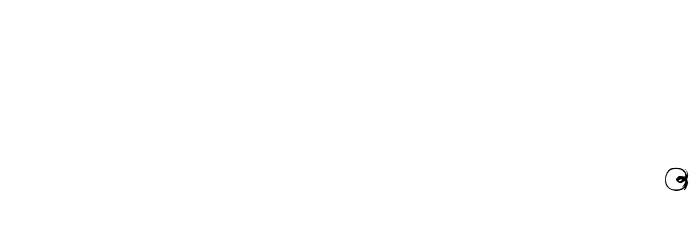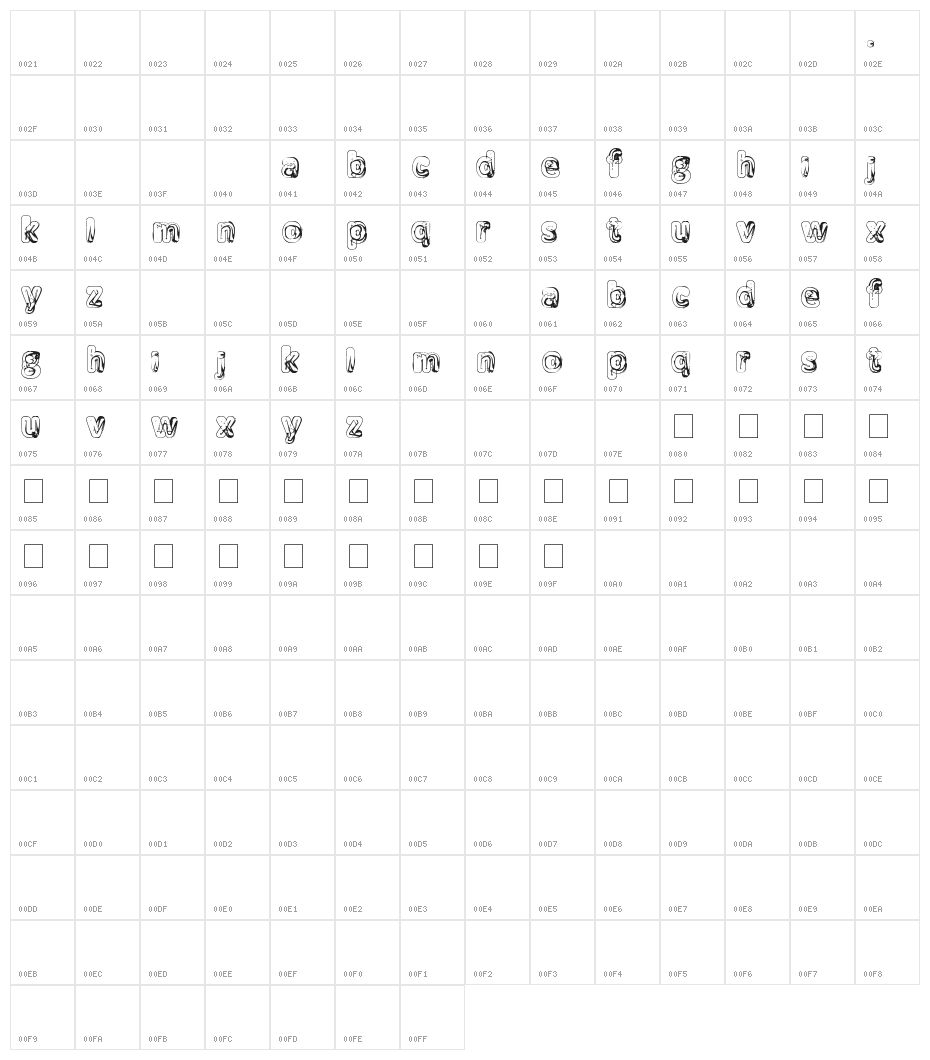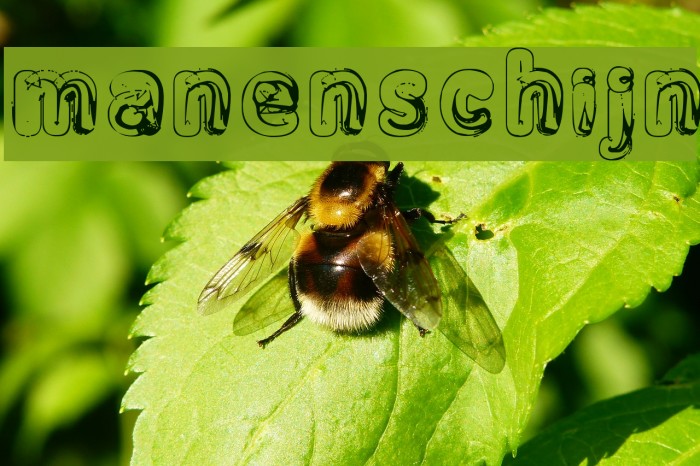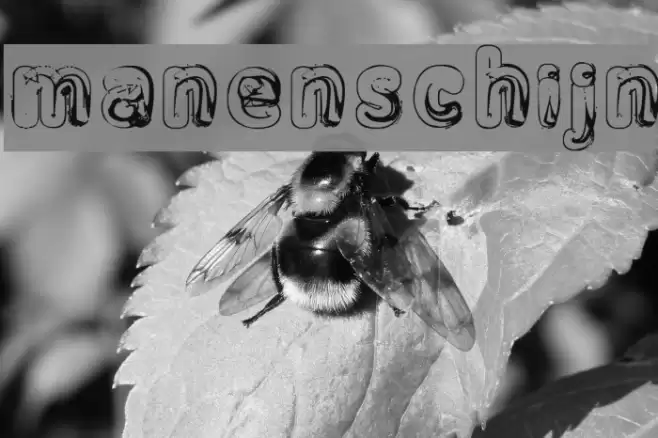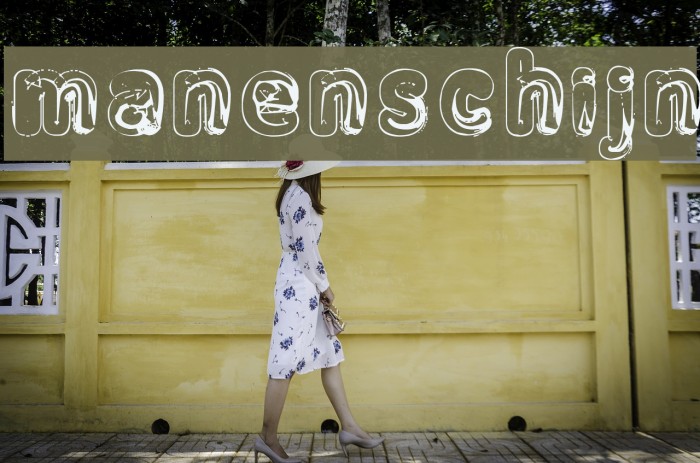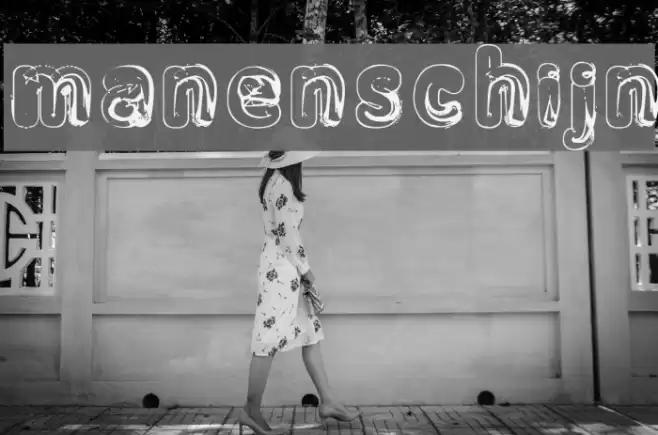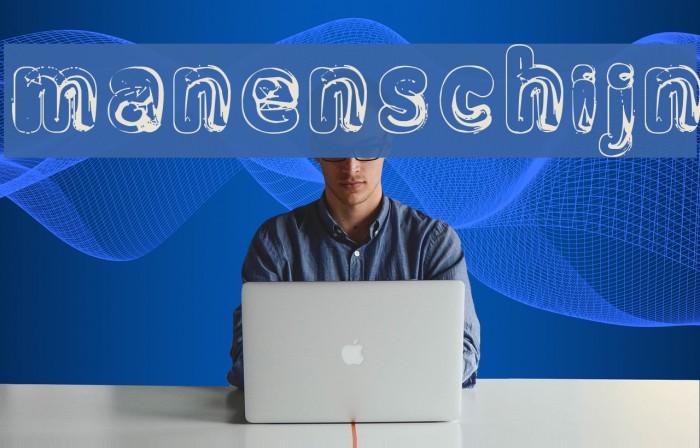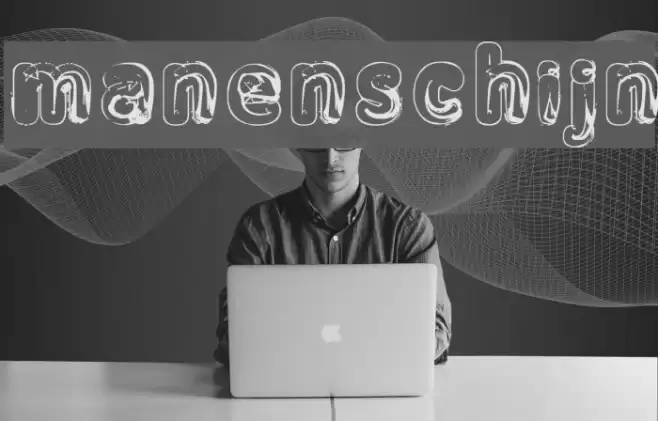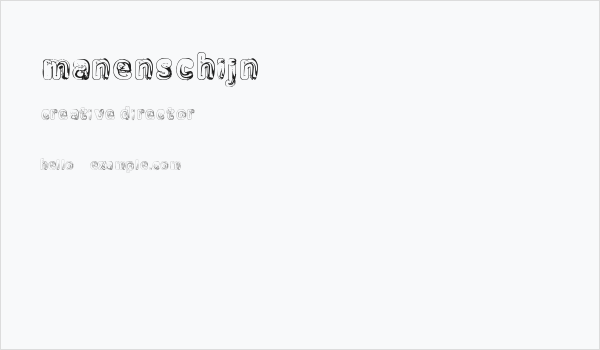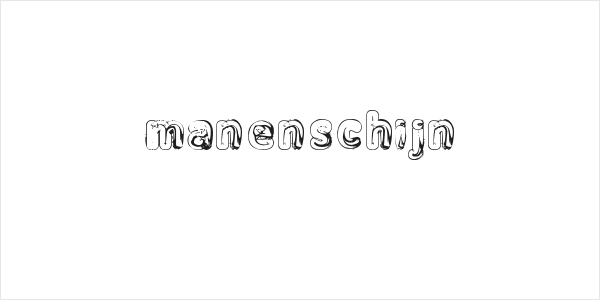
Manenschijn Font
Manenschijn Description
This font features a playful and artistic design with a grunge effect. Each character is outlined with a bold stroke, and the interior is filled with splatters and irregular patterns, giving it a distressed and textured appearance. The font maintains a consistent structure with rounded edges, creating a friendly and approachable look. The unique design elements make it stand out, suitable for creative and unconventional projects. Its distinct style is perfect for capturing attention and adding a dynamic touch to any design.
| Use Case | Headlines, Logos, Artistic projects |
| Proposed Projects | Ideal for posters, album covers, artistic projects, and branding that requires a unique and edgy look. |